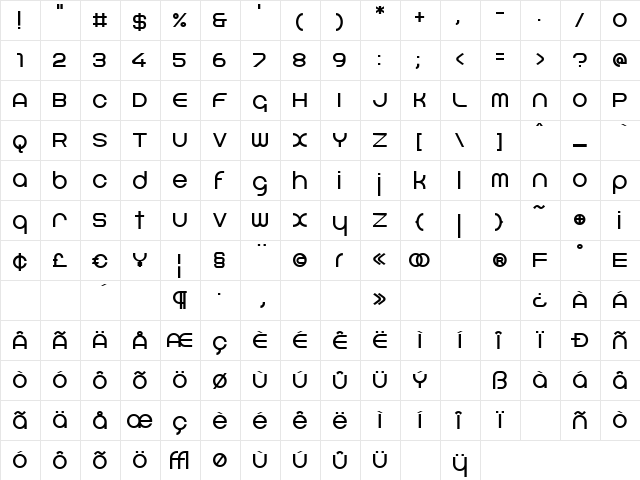
Bayer Sans Regular
Design Context for Bayer Sans Typeface
Bayer Sans offers clean, dependable letterforms without strong stylistic allegiance, making it a practical choice for designers who need flexibility.